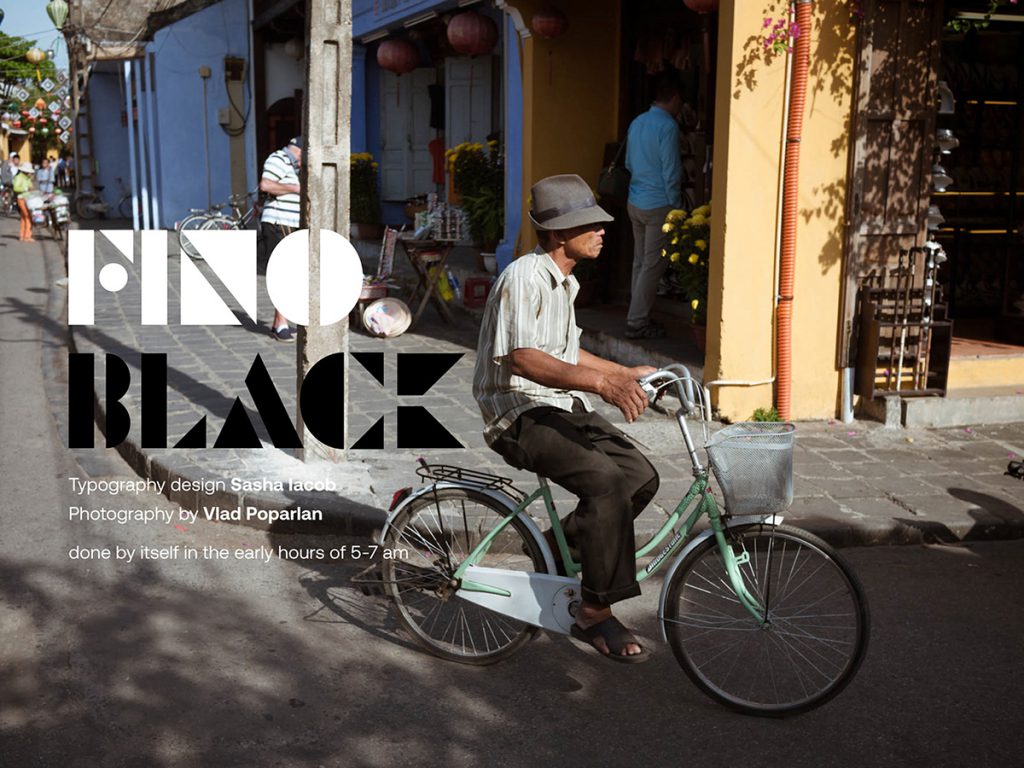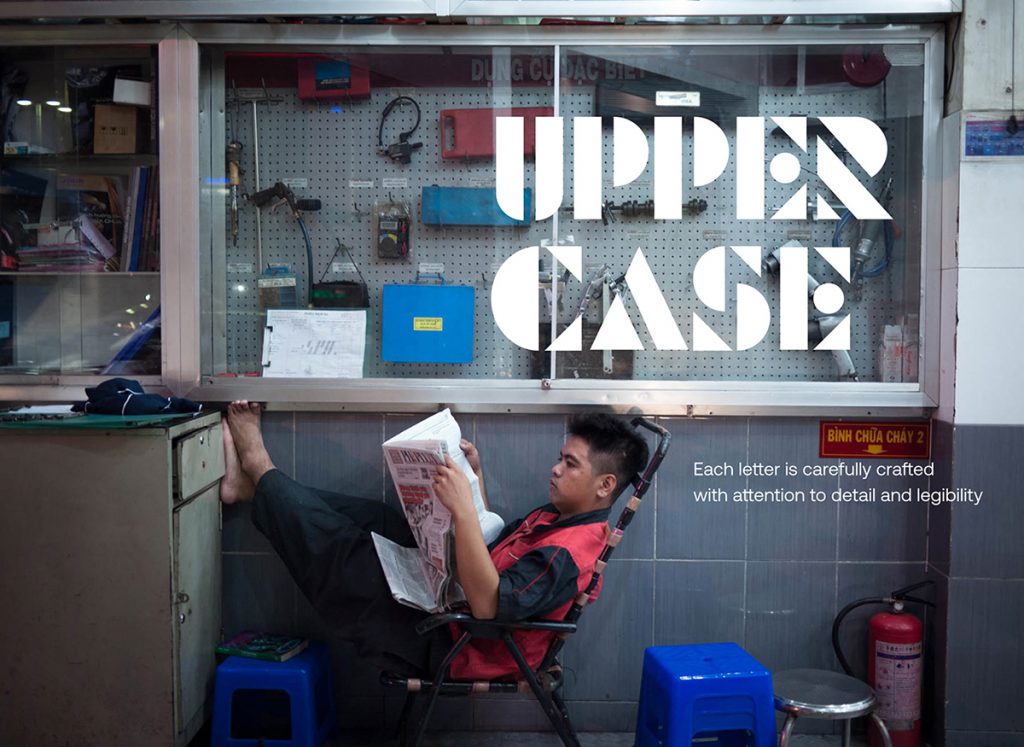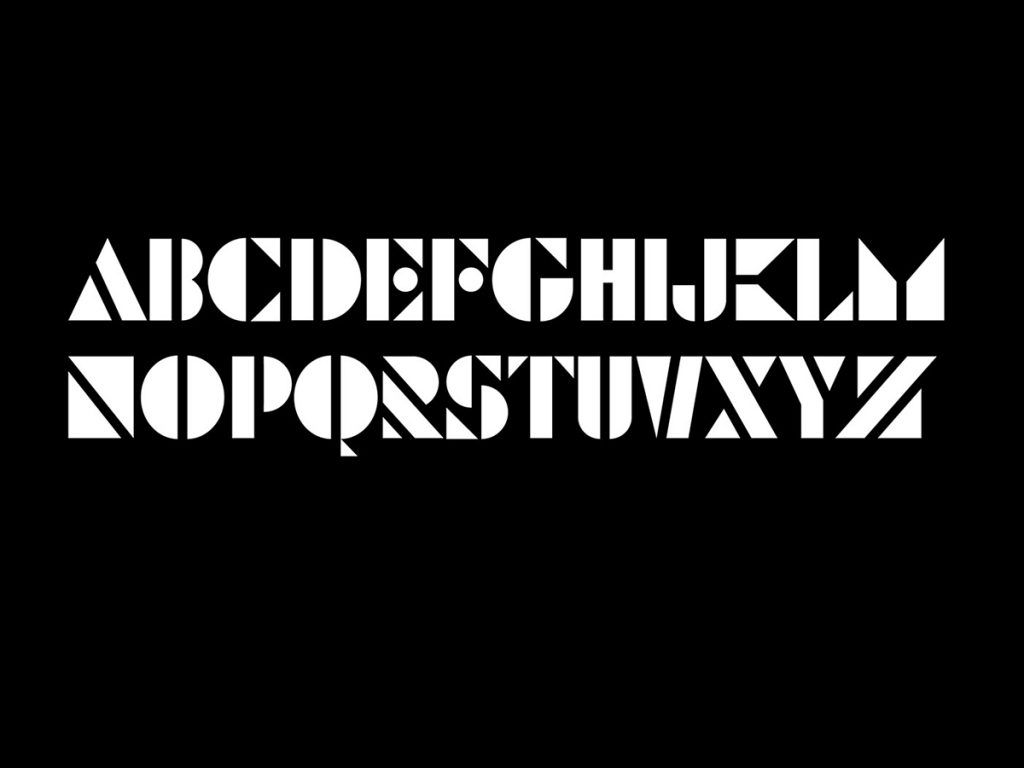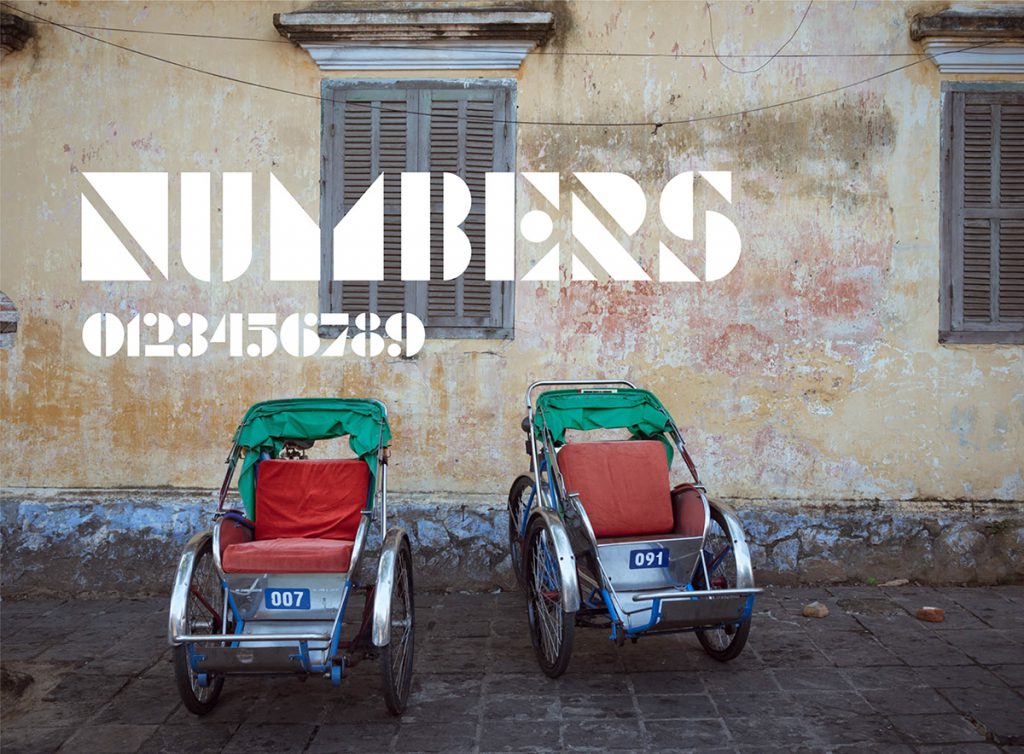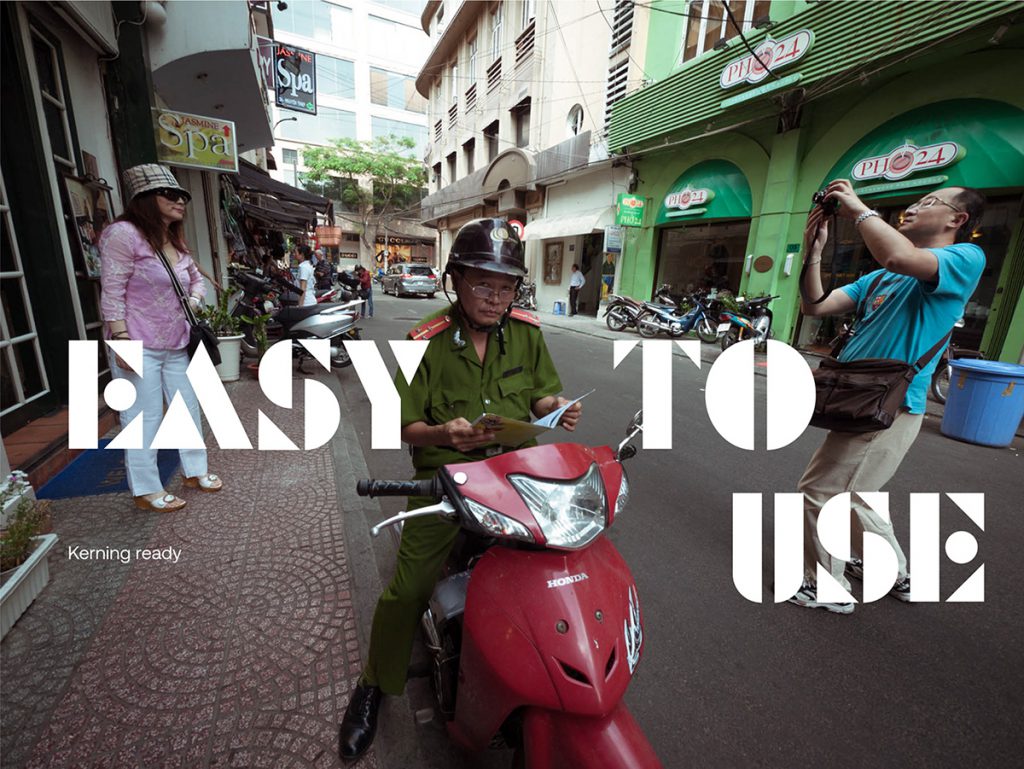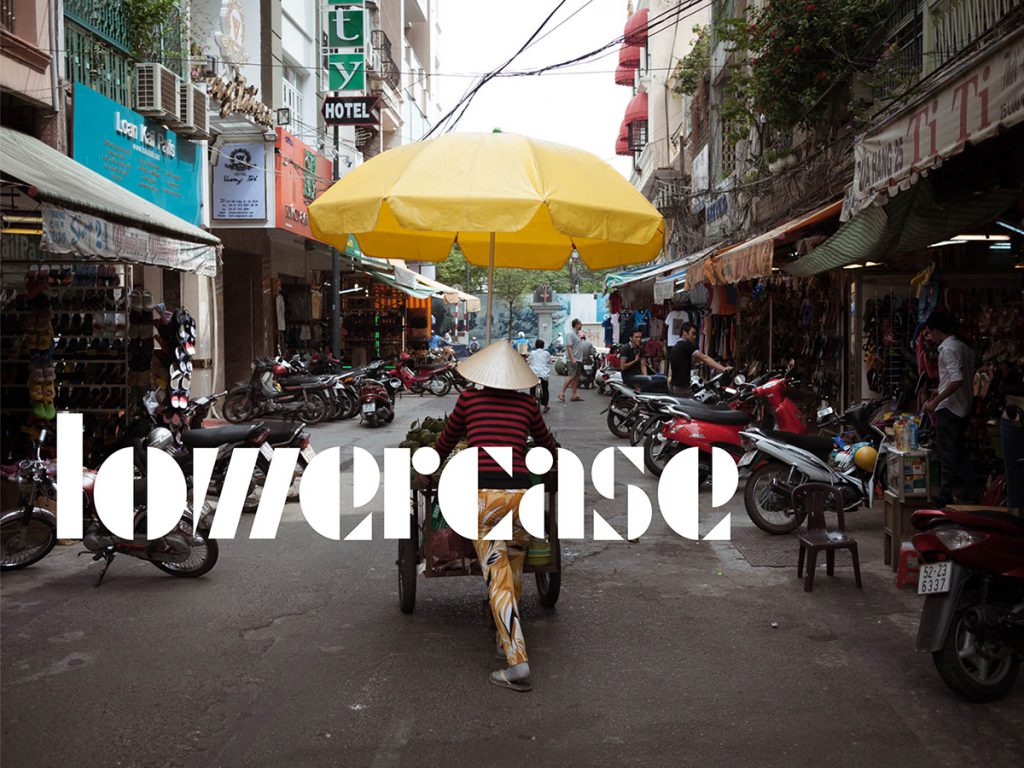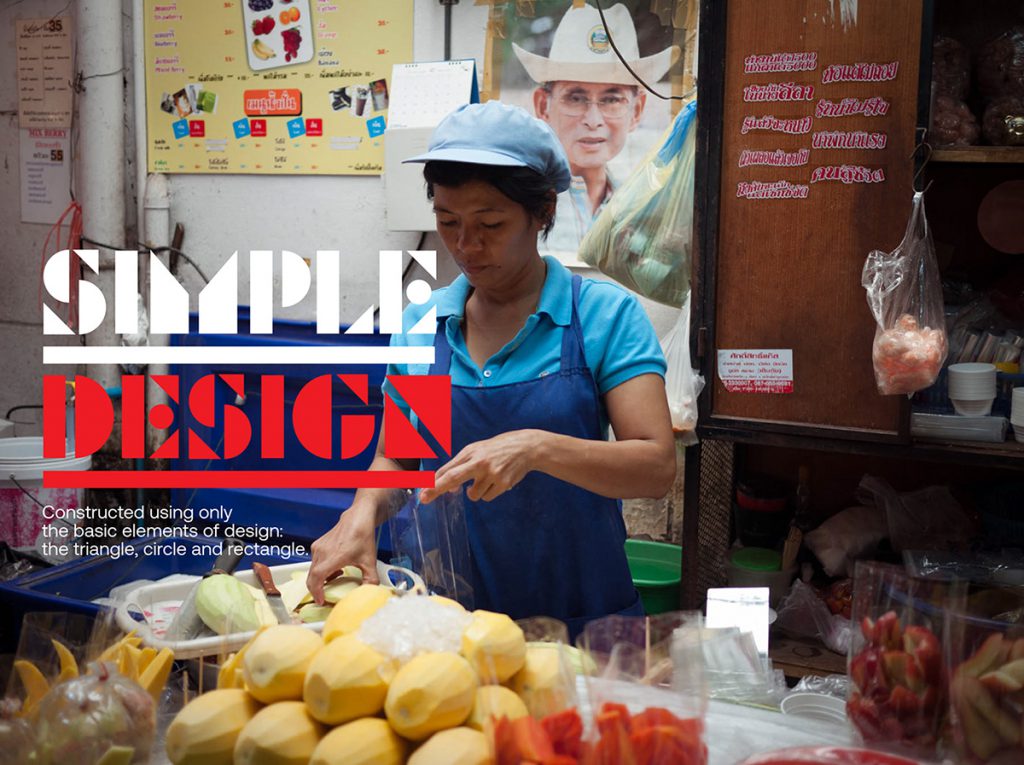
Fino Free Display Typeface is a collaborative project by Sasha Iacob as the type designer and Vlad Poparlan as the photographer. Each letter is carefully crafted with attention to detail and legibility. It offers you stylish and minimal look, using only basic elements of design: the triangle, circle, and rectangle. It is also Kerning ready with uppercase, lowercase, number, and essential punctuation. Additionally it comes with alternates so you can choose your style.